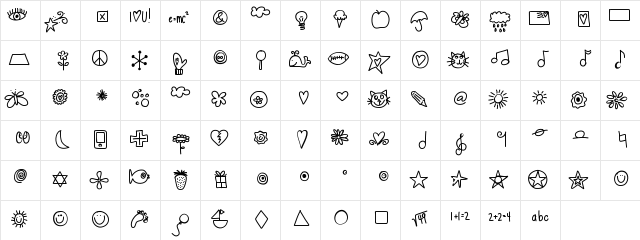
HelloDoodles Medium Free Font
HelloDoodles Medium
Design Context for HelloDoodles
HelloDoodles is a composed and adaptable typeface that performs quietly and consistently across a wide range of design contexts.
Pro Tip: Use HelloDoodles in both headline and body roles to test its range before committing to a single application.